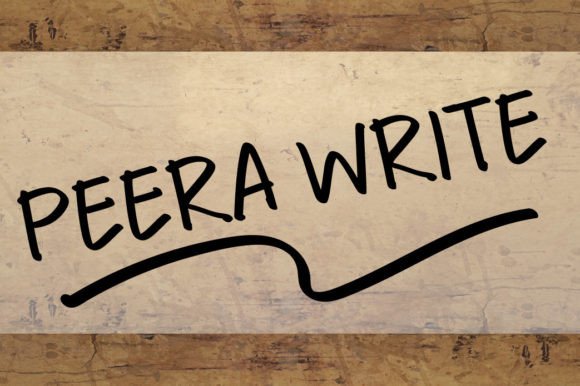
**Unlock Your Imagination with Peera Write Font: The Ultimate Creative Companion**
Journey into the world of Peera Write Font, a script font that's not just a collection of letters, but a gateway to unlocking your imagination. Picture this: you're a child again, scribbling stories with wild abandon, your pen dancing across the page. Peera Write Font captures that same unrestrained creativity, transforming your words into captivating works of art.
**Enchanting Creations Await**
With Peera Write Font, you'll find yourself effortlessly creating invitations that transport your guests to a magical world, posters that ignite curiosity and set hearts racing, and digital art that captivates and inspires. Whether you're a seasoned designer or just starting your artistic journey, Peera Write Font is your key to unlocking a world of endless possibilities.
**Note-Taking Elevated to an Art Form**
Transform your mundane notes into visually stunning masterpieces. Peera Write Font's natural-looking handwritten style adds a personal touch to your jottings, making them a joy to revisit. Experience the thrill of seeing your thoughts dance across the page, each word imbued with a unique charm that reflects your creativity.
**Greetings That Leave a Lasting Impression**
Make your greetings unforgettable. Peera Write Font adds a touch of warmth and playfulness to your messages, whether you're sending a simple hello or crafting a heartfelt letter. Imagine the delight on your recipient's face as they decipher your elegant words, each letter a testament to the care and thoughtfulness you put into your communication.
**Unleash the Storyteller Within**
Bring your children's books to life with Peera Write Font. Its whimsical nature perfectly captures the magic and wonder of childhood stories. Watch as your young readers are transported to enchanted lands, following the adventures of brave heroes and mischievous fairies. Peera Write Font is the perfect storyteller's companion, breathing life into tales that will stay with your children long after the last page is turned.
**A Creative Revolution at Your Fingertips**
Peera Write Font is more than just a font; it's an invitation to let your creativity run wild. Whether you're a seasoned designer, an aspiring artist, or simply someone looking to add a spark of uniqueness to your everyday life, Peera Write Font is the perfect tool to bring your vision to life. Embrace the boundless possibilities and let your imagination soar.